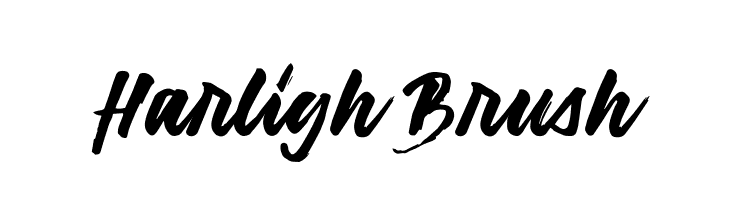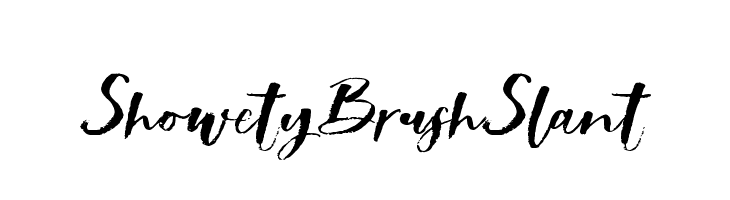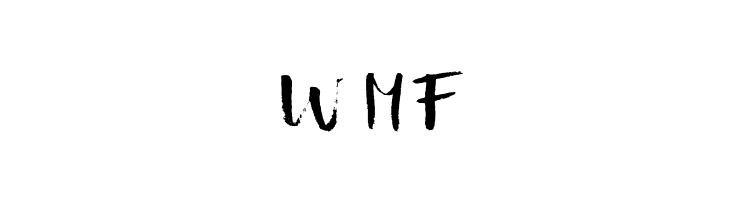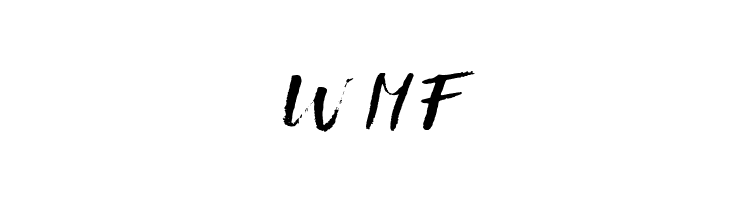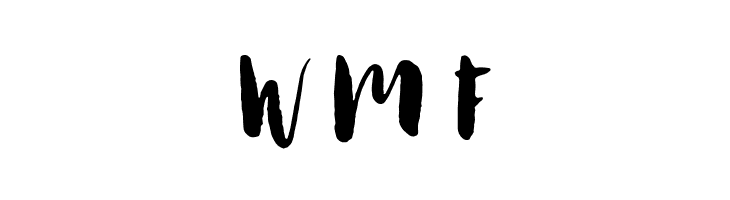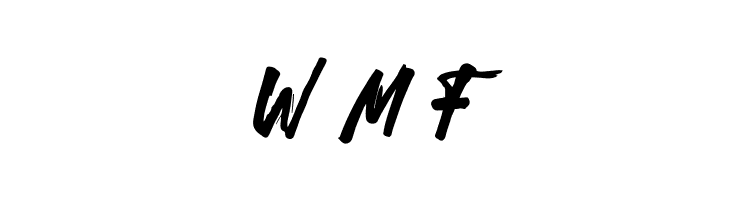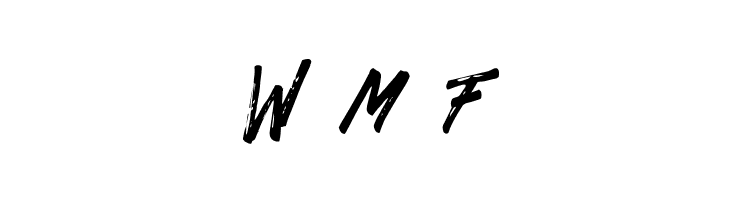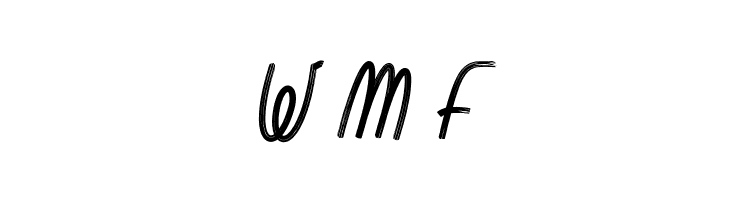
A bold, brush-style font with an energetic and hand-drawn appearance.
A bold, italic, brush-style font with dynamic strokes.
An expressive, brush-like font with dynamic strokes and a hand-drawn appearance.
A bold, brush-style font with dynamic, handcrafted strokes.
A bold, textured script font with a dynamic, brush-like appearance.
A bold, brush-stroke style font with a hand-painted, textured appearance.
A bold, distressed font with a brush-like texture and chaotic aesthetic.
A bold, brush-style font with an expressive and dynamic appearance.
A bold, brush-textured font with a raw and energetic style.
A bold, brush-style font with dynamic, slanted characters and thick strokes.
A dynamic, italicized font with bold, brush-like strokes.
A bold, brush-style font with dynamic, hand-drawn characteristics.
A bold, hand-painted style font with textured, brush-like strokes.
A bold, hand-painted style font with a textured, brush-like appearance.
A bold, distressed brushstroke font with an edgy, dynamic style.
A bold, brush-like font with a playful and dynamic style.
A bold, brushstroke-style font with an energetic and artistic appearance.
A dynamic, brush-style font with expressive strokes and artistic flair.
A bold, brush-style font with dynamic, handwritten characteristics.
A dynamic, brush-style font with bold, expressive strokes and a calligraphic flair.
A bold, brush-style font with dynamic and expressive strokes.
A bold, brush-style font with high contrast and dynamic strokes.
A dynamic, hand-drawn font with bold, brush-like strokes.
A bold, hand-painted brush script with dynamic, expressive strokes.
A rugged, hand-drawn brush-style font with dynamic strokes and an organic feel.
A bold, italicized font with a dynamic, brush-like style.
A bold, brush-stroke style font with dynamic and expressive characters.